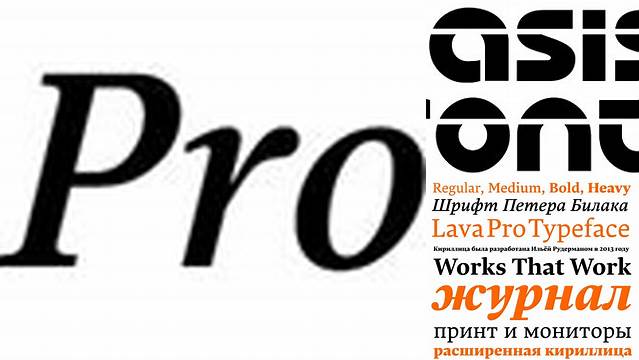
Hey guys, are you on the hunt for a super cool and versatile font that can level up your design game? Well, look no further because we're diving deep into the world of Lava Pro Font and how you can snag a free download! This font is a real gem, known for its modern and clean aesthetics, making it perfect for a wide range of projects. From eye-catching headlines to sleek body text, Lava Pro is your go-to choice. In this guide, we'll explore everything you need to know about Lava Pro, including where to find it, its amazing features, and how to use it effectively. So, buckle up and let's get started!
What Makes Lava Pro Font So Special?
Okay, so what's the big deal with Lava Pro Font? Why should you care? Well, first off, this font family is incredibly versatile. It comes in a variety of weights and styles, meaning you have a ton of options to play with. Whether you need something bold and attention-grabbing or something subtle and elegant, Lava Pro has you covered. One of the standout features is its readability. In a world filled with fonts that can be hard on the eyes, Lava Pro shines with its clear and easy-to-read design. This makes it ideal for both print and digital applications. Furthermore, Lava Pro Font boasts a contemporary look that fits right in with current design trends. It's perfect for branding, web design, and any project where you want to convey a sense of modernity and sophistication. The font's clean lines and balanced proportions give it a professional edge, making it a favorite among designers. The character set of Lava Pro Font is another huge plus. It supports a wide range of languages, ensuring that you can use it for international projects without any issues. This broad language support is essential for any designer looking to create globally-appealing content. Moreover, the font's design is meticulously crafted, offering excellent kerning and spacing. This attention to detail ensures that your text always looks polished and professional. The different weights and styles within the Lava Pro family allow for creative flexibility. You can use the bolder weights for headlines and titles to make them pop, while the lighter weights are perfect for body text. This variety allows you to create a visual hierarchy that guides the reader's eye and enhances the overall design. So, in a nutshell, Lava Pro is special because of its versatility, readability, modern design, extensive character set, and excellent kerning. It's a font that truly stands out.
Using Lava Pro Font in Your Designs
Now that you've got your Lava Pro Font, let's talk about how to use it to create stunning designs. First, think about your project. What message are you trying to convey? The style and weight of Lava Pro Font you choose should reflect the overall tone of your design. For a professional look, use a clean and light weight for body text, reserving the bolder weights for headlines. The versatility of Lava Pro Font makes it suitable for a wide range of applications, from websites and print materials to social media graphics. When it comes to websites, Lava Pro is a great choice because of its readability. Its clean lines make it easy to read on screens, and the variety of weights allows you to create a clear visual hierarchy. Use the bold weights for headings and the lighter weights for paragraphs. This helps guide the reader's eye and keeps them engaged. In print materials, such as brochures or flyers, Lava Pro Font can add a touch of sophistication. Experiment with different weights and sizes to create an eye-catching design. Make sure your text is easy to read, and always consider the overall layout. Don't be afraid to play with different font sizes and spacing to achieve the desired look. For social media graphics, Lava Pro Font can help your content stand out. It's ideal for creating visually appealing quotes, announcements, or promotional materials. Choose the weight that best suits the message you're conveying and ensure that it complements the images or other design elements. In addition to the weights, consider the overall style of your design. Lava Pro Font works well with modern and minimalist designs. It's also a great match for designs that require a touch of elegance. Pair it with a complementary color palette and high-quality images to create a cohesive and professional look. When you're using Lava Pro Font, pay attention to the details. Ensure that the kerning (the space between letters) and the leading (the space between lines) are correct. Proper spacing is critical for readability. Use the font in a way that is consistent with your brand guidelines. Consistency is key to establishing a strong brand identity. Use the same font family, weights, and styles across all your marketing materials to create a recognizable brand. Ultimately, using Lava Pro Font effectively is all about experimentation and creativity. Play with different weights, sizes, and styles until you find what works best for your project. Don't be afraid to try different combinations and see what feels right. Remember to consider the overall goal of your design and how Lava Pro Font can help you achieve it. By following these tips, you'll be well on your way to creating designs that look fantastic and communicate your message clearly and effectively.
Conclusion: Elevate Your Designs with Lava Pro Font